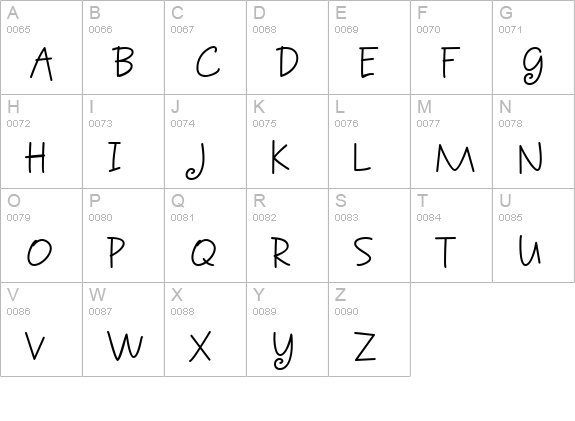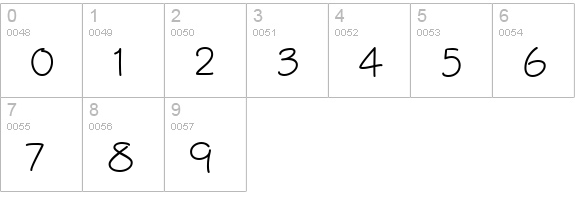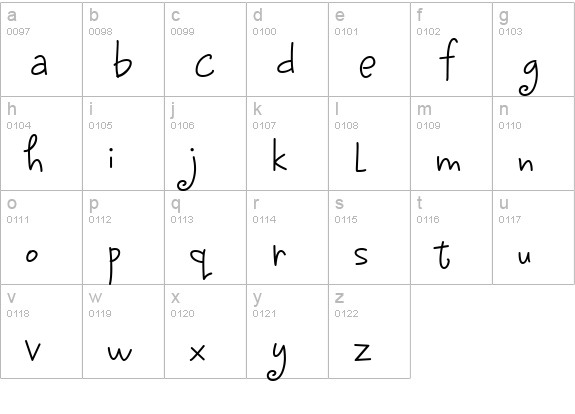
Sunnydale Font Details
Discover the charming elegance of Sunnydale font, a versatile typeface that effortlessly blends classic sophistication with modern flair. Its timeless design exudes warmth and readability, making it a perfect choice for a wide range of projects, from branding to editorial design. Sunnydale font is available for free download at FontsMarket.com, where you can easily access this exquisite typeface and add a touch of refinement to your creative endeavors. With its graceful curves and balanced proportions, Sunnydale font is sure to elevate any design to new heights of style and professionalism. Embrace the beauty of typography with Sunnydale font and let your creativity shine.